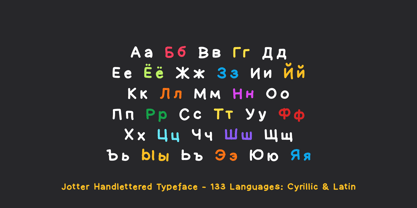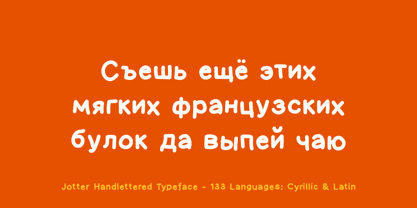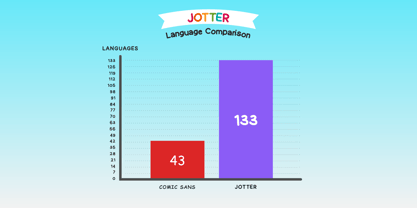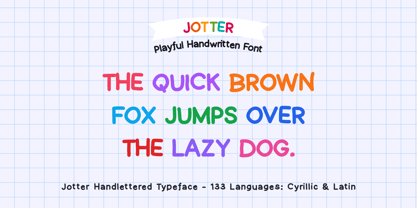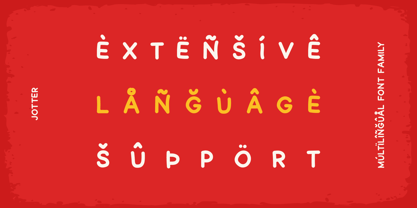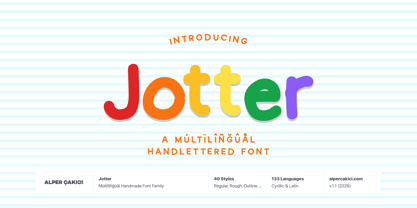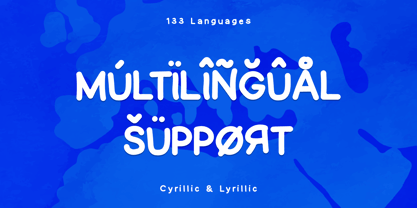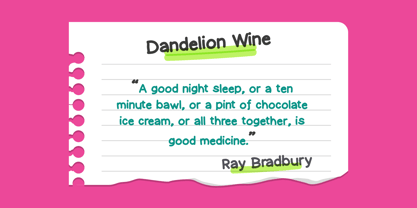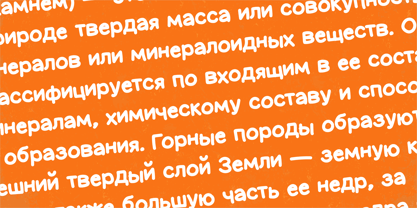
Jotter
by AlperCakici
The Jotter Font Family was designed by Alper Çakıcı and published by AlperCakici. Jotter contains 40 styles and family package options. More about this family
Jotter is a lively handwritten typeface with a playful, comic-inspired personality and an expressive, natural rhythm. Designed to feel spontaneous yet controlled, Jotter captures the warmth of real handwriting while maintaining strong legibility across both display and text settings. With support for extended Latin and Cyrillic languages, Jotter is built for international creativity — from branding and packaging to children’s books, social media graphics, posters, and educational materials. The family includes multiple expressive series, each offering Regular, Italic, and Outline counterparts: Angular Brush Chalk Eroded Graphite Liner Pencil Rough Wax Whether you want the textured authenticity of Pencil, the bold character of Brush, the classroom charm of Chalk, or the playful energy of Rough, Jotter adapts to your tone. Key Features: • Handwritten, comic-style personality • Extended Latin & Cyrillic support • Multiple stylistic series • Outline & Italic variants • Perfect for playful branding & informal design • Ideal for children’s content, posters & digital graphics Jotter brings energy, warmth, and character to every word.